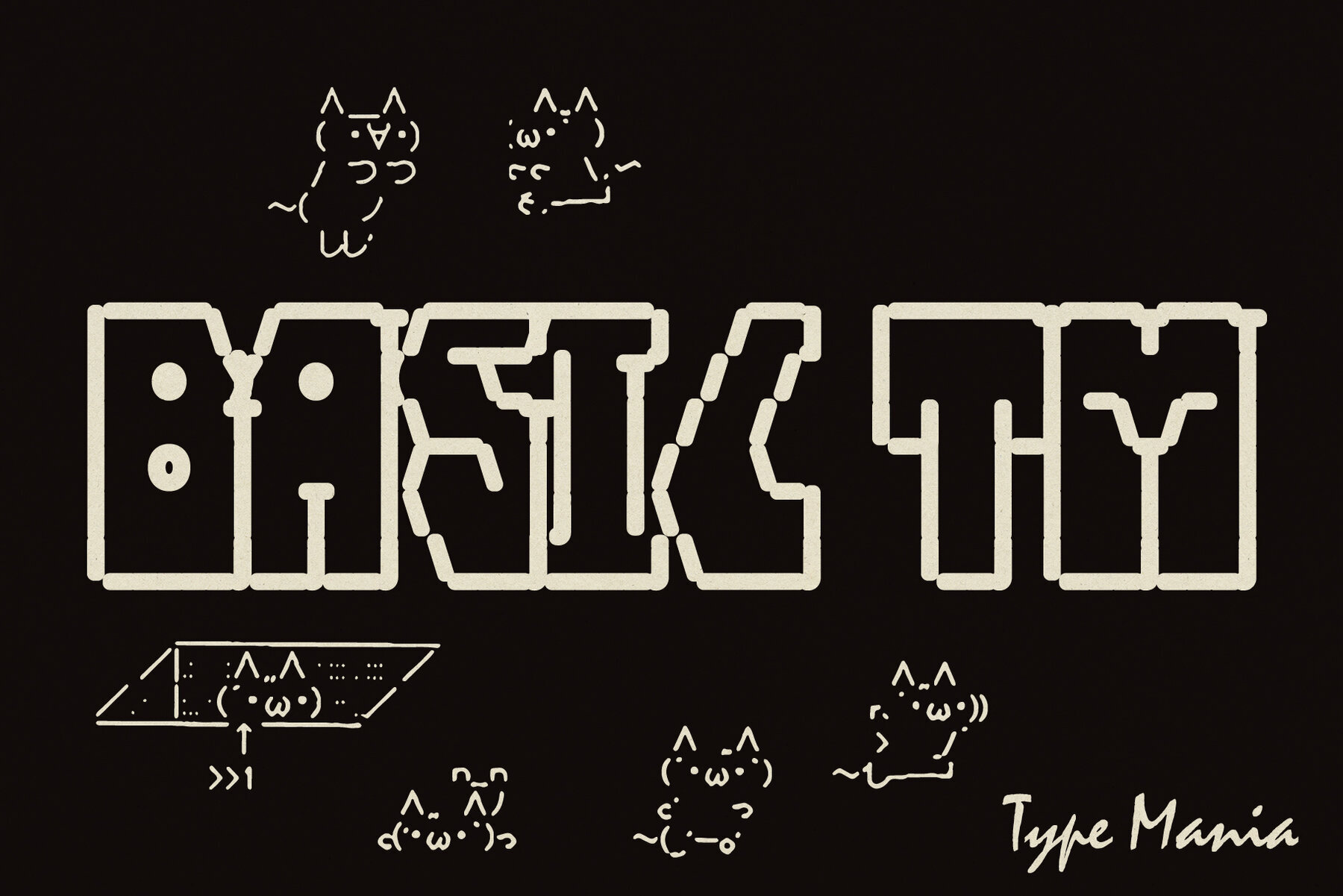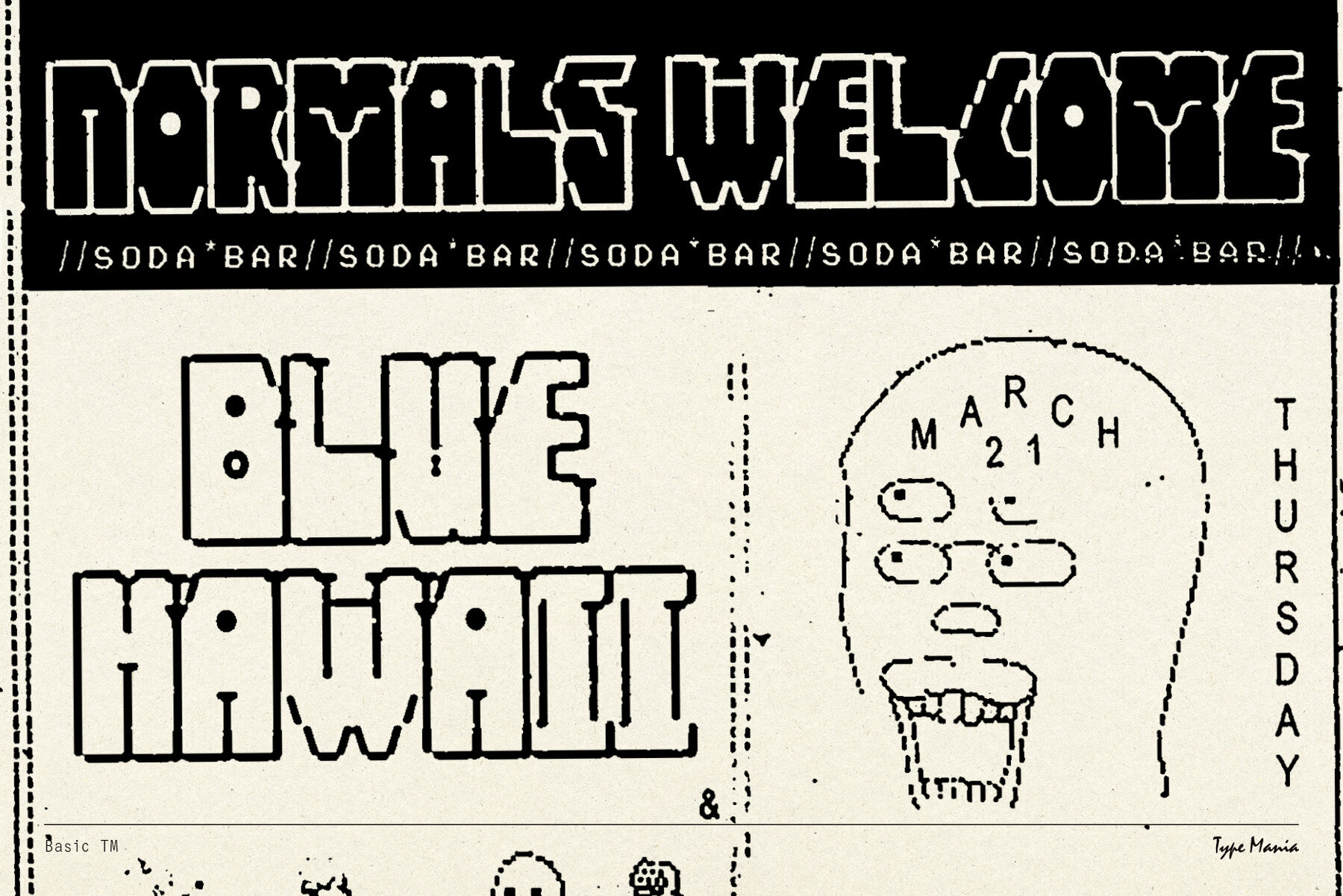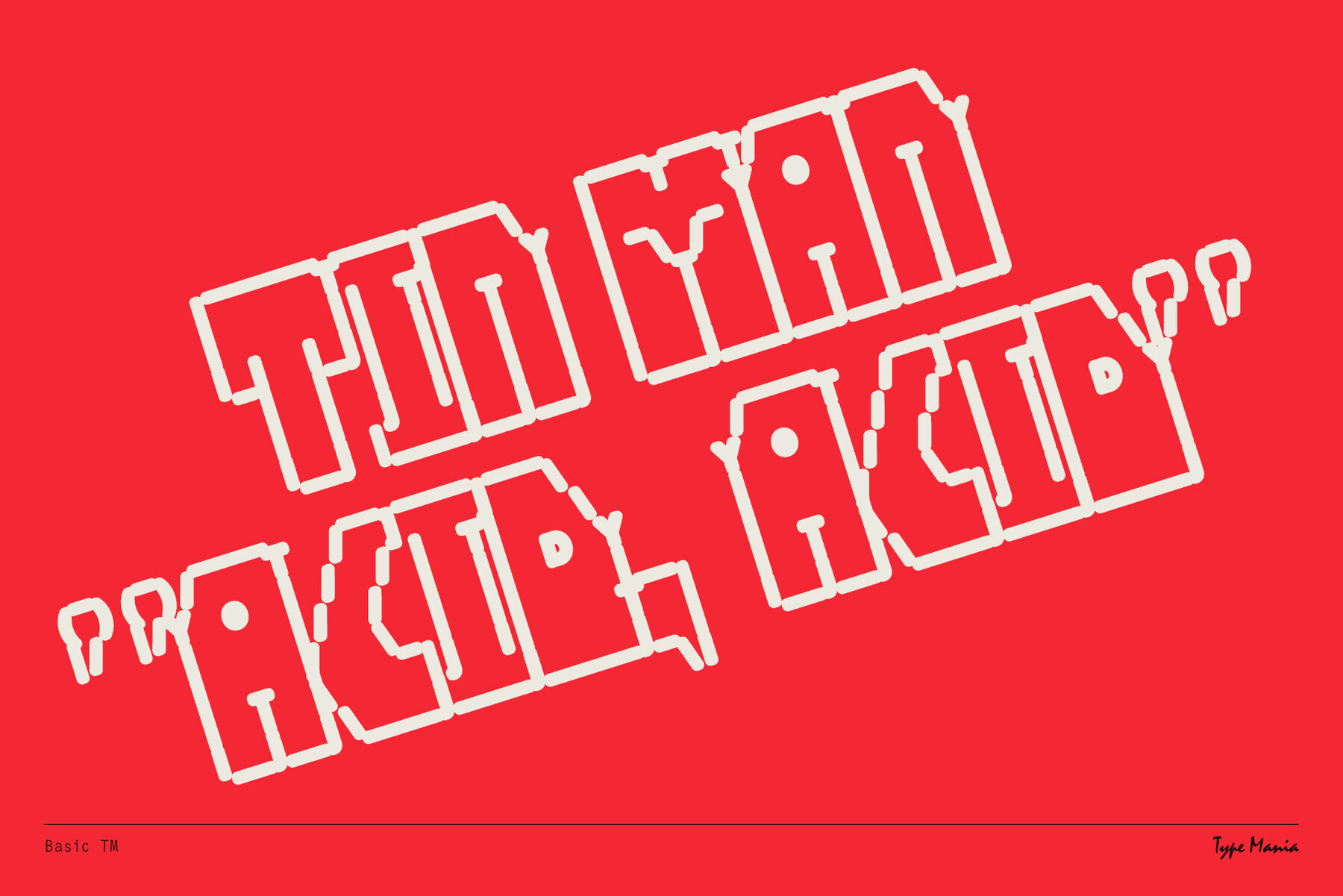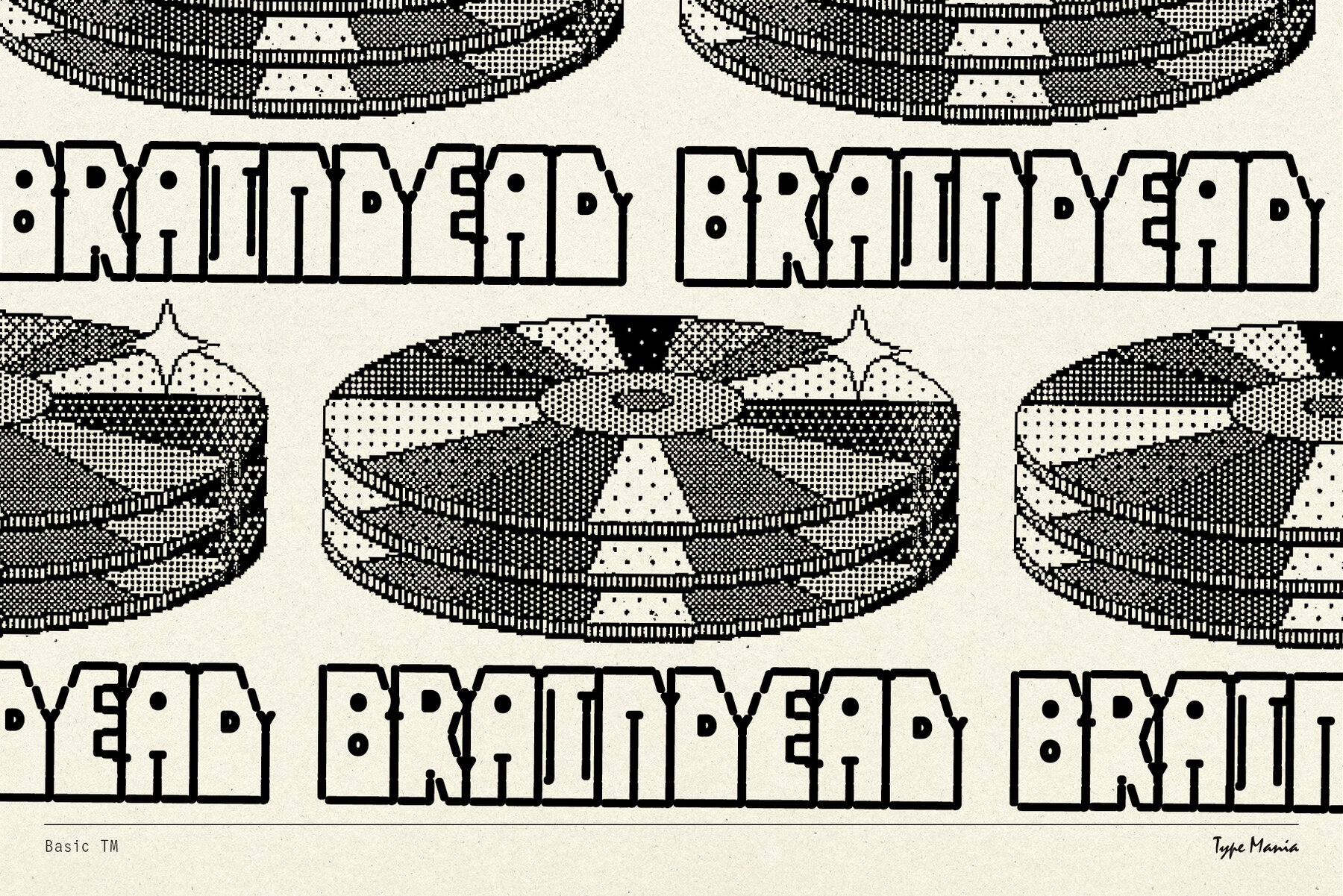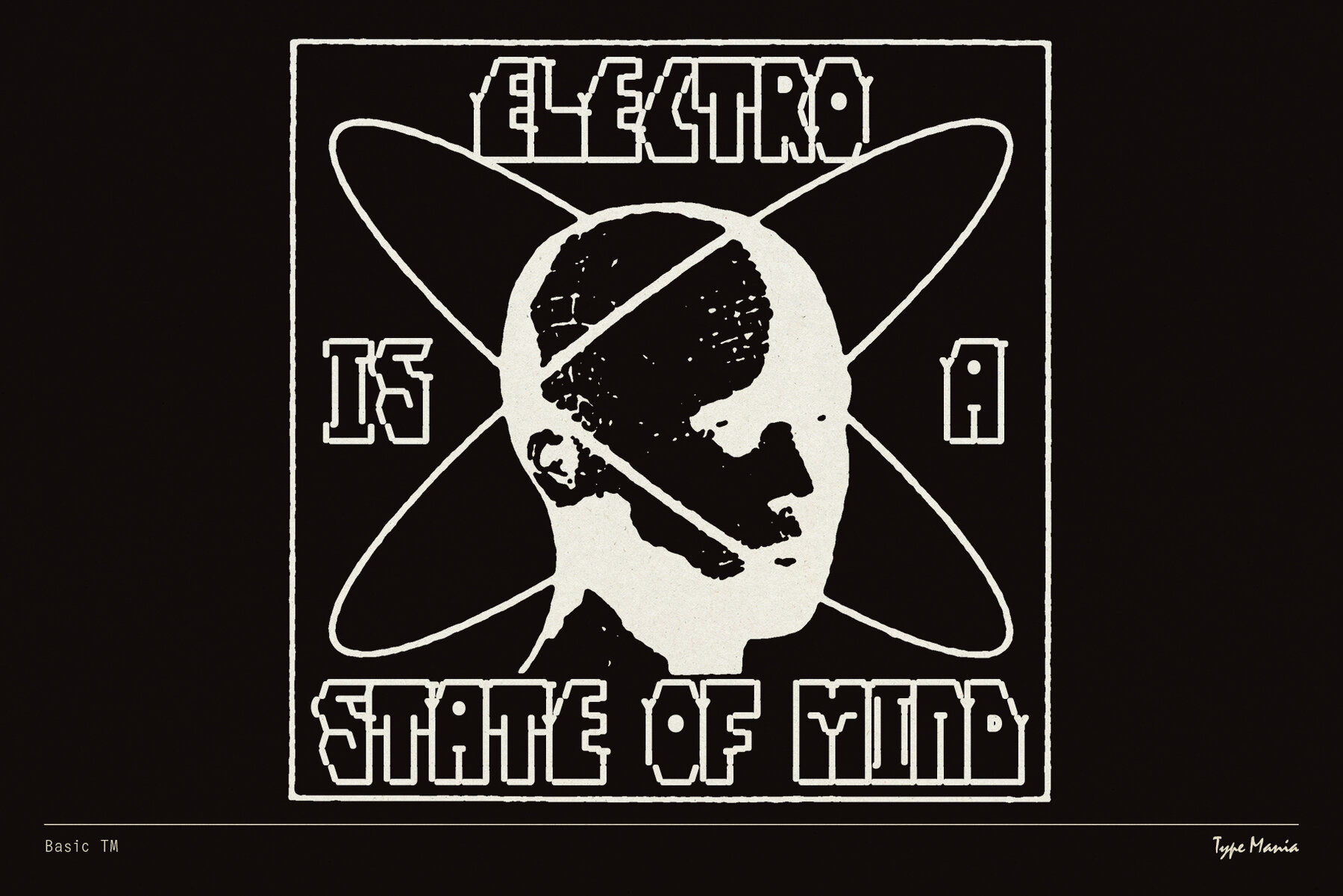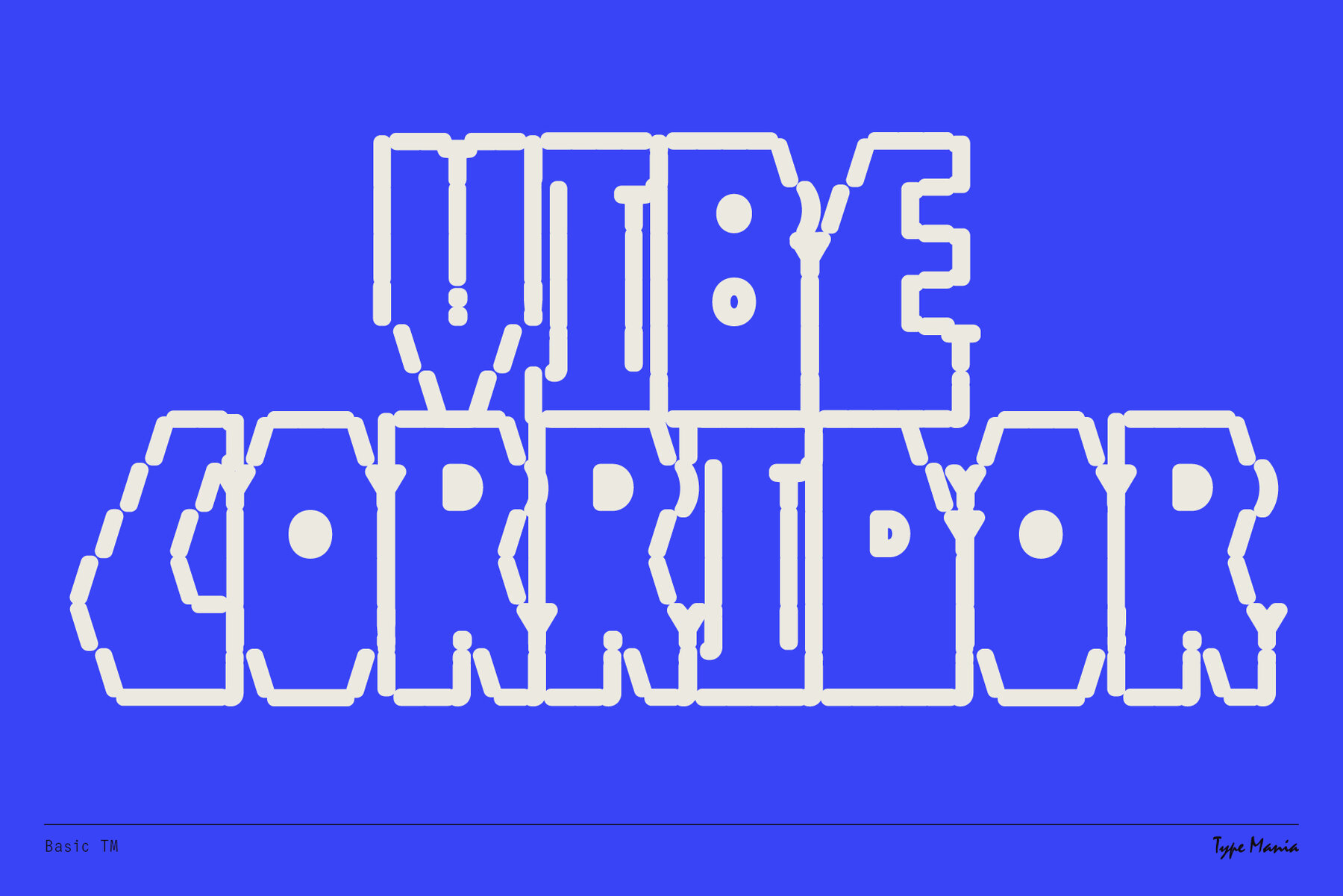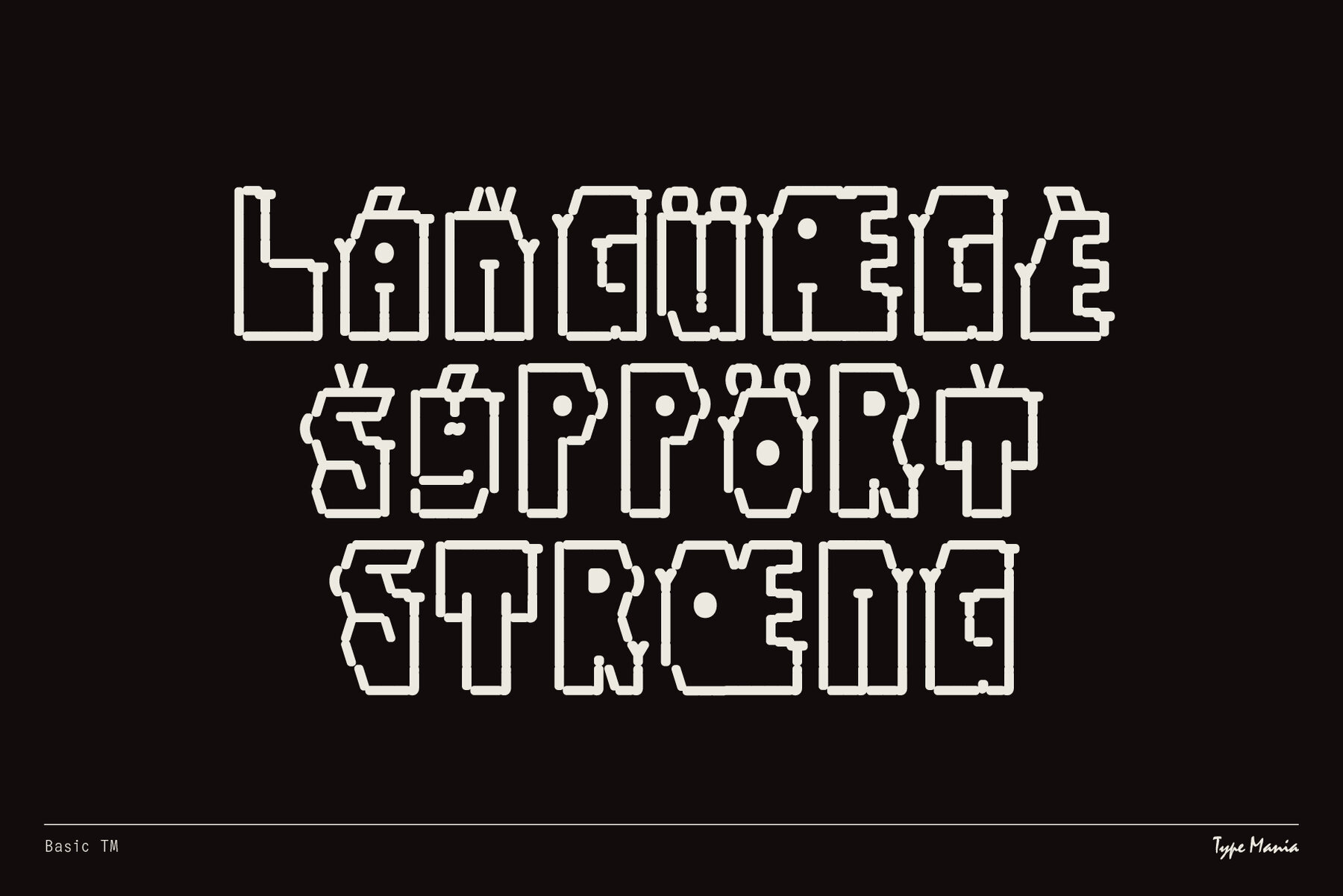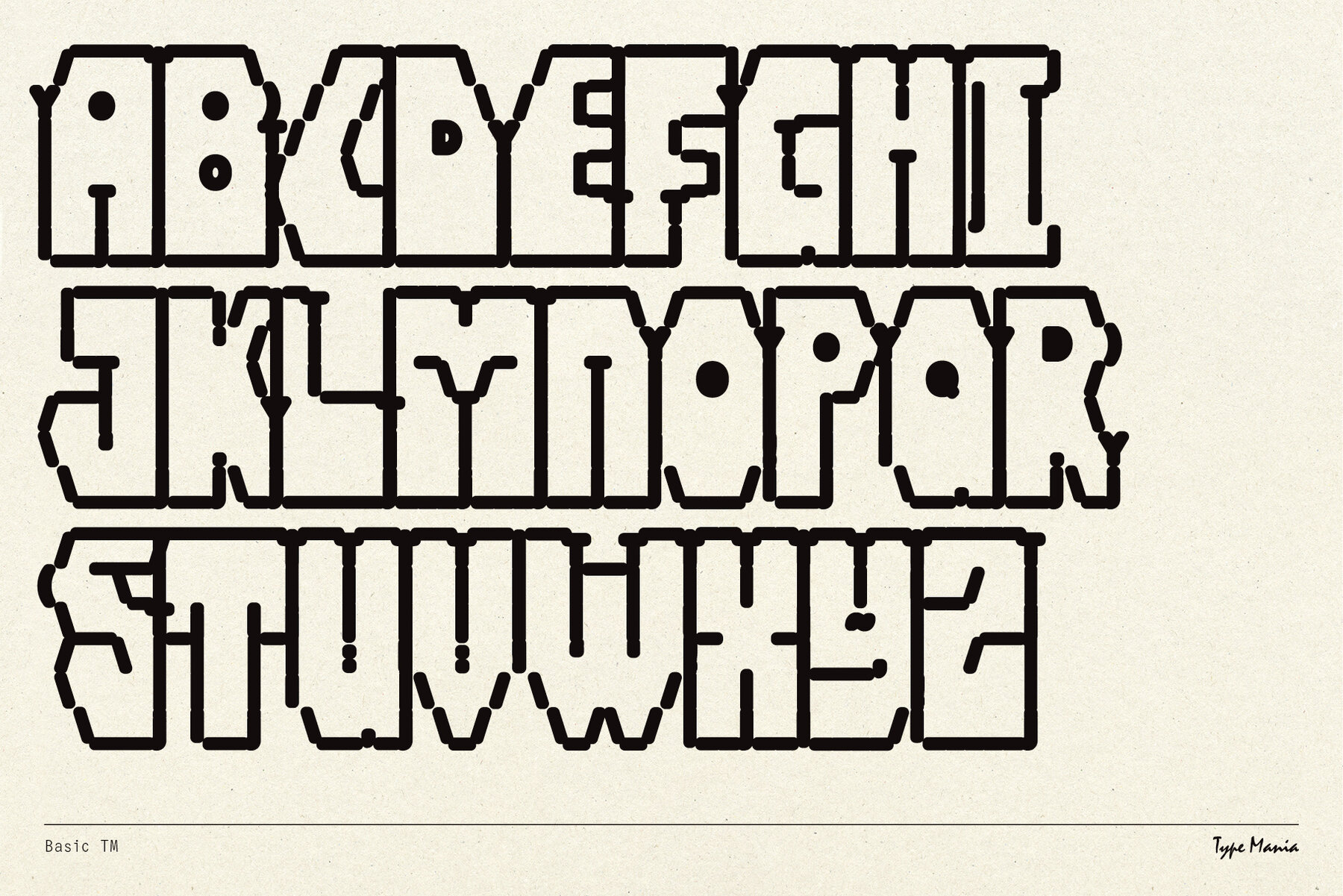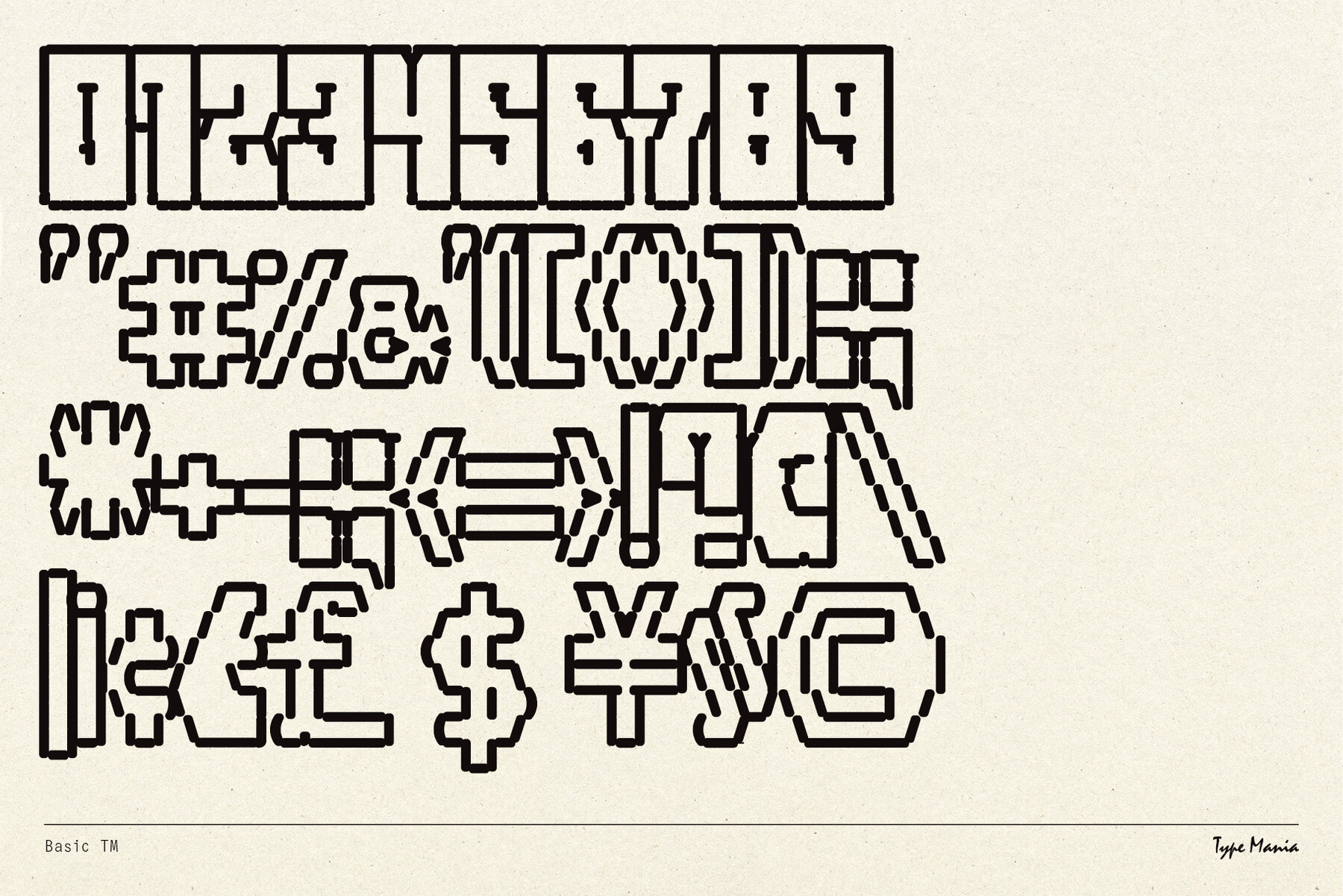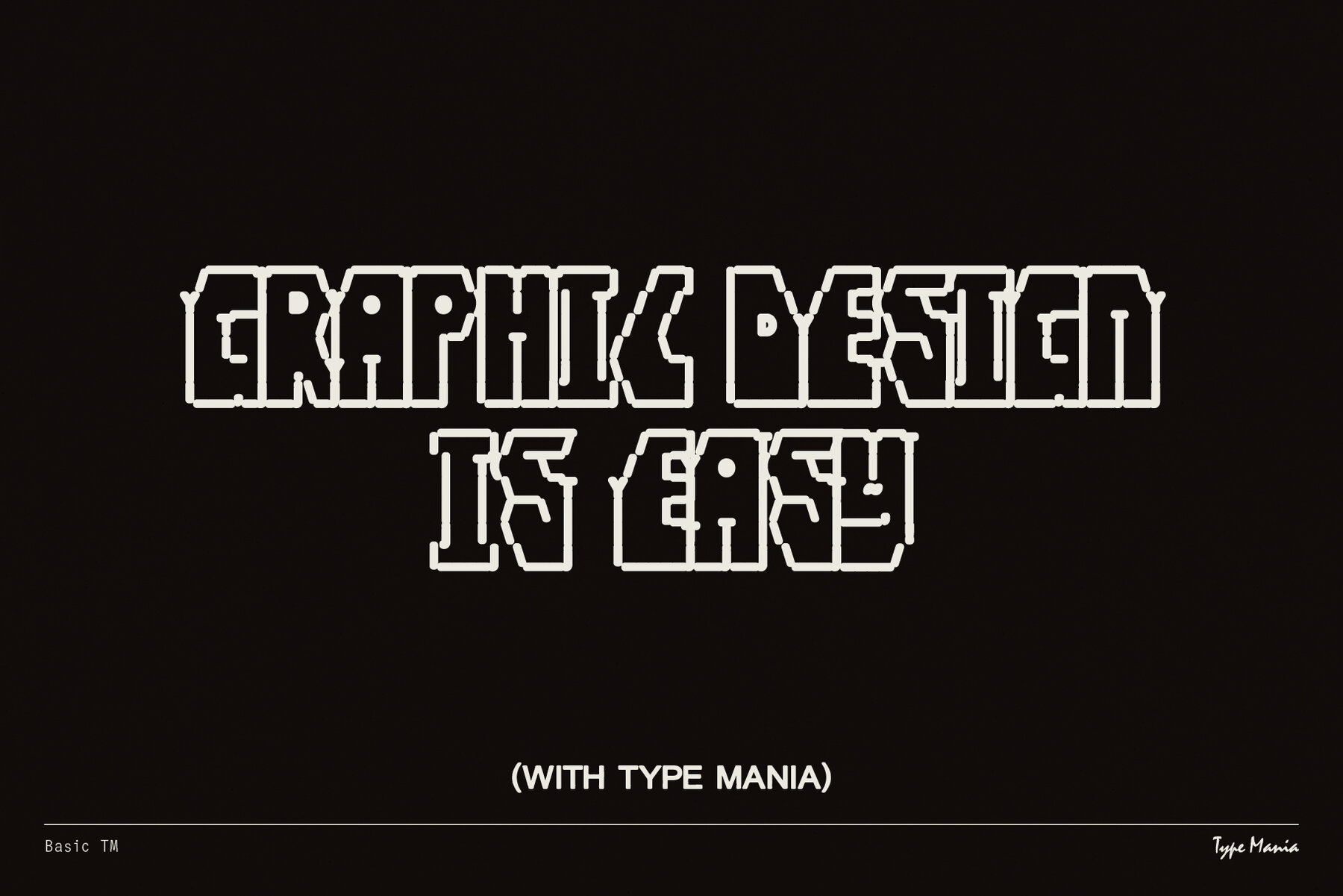
Basic TM Font
Basic TM Regular
Step into the digital frontier with our newest creation: Basic TM. This ASCII-inspired display font brings the nostalgia of early computing into the 2020s with a twist. Whether you're designing a flyer for an underground dance party or crafting a quirky advertisement, Basic TM will deliver undeniable style to any project.